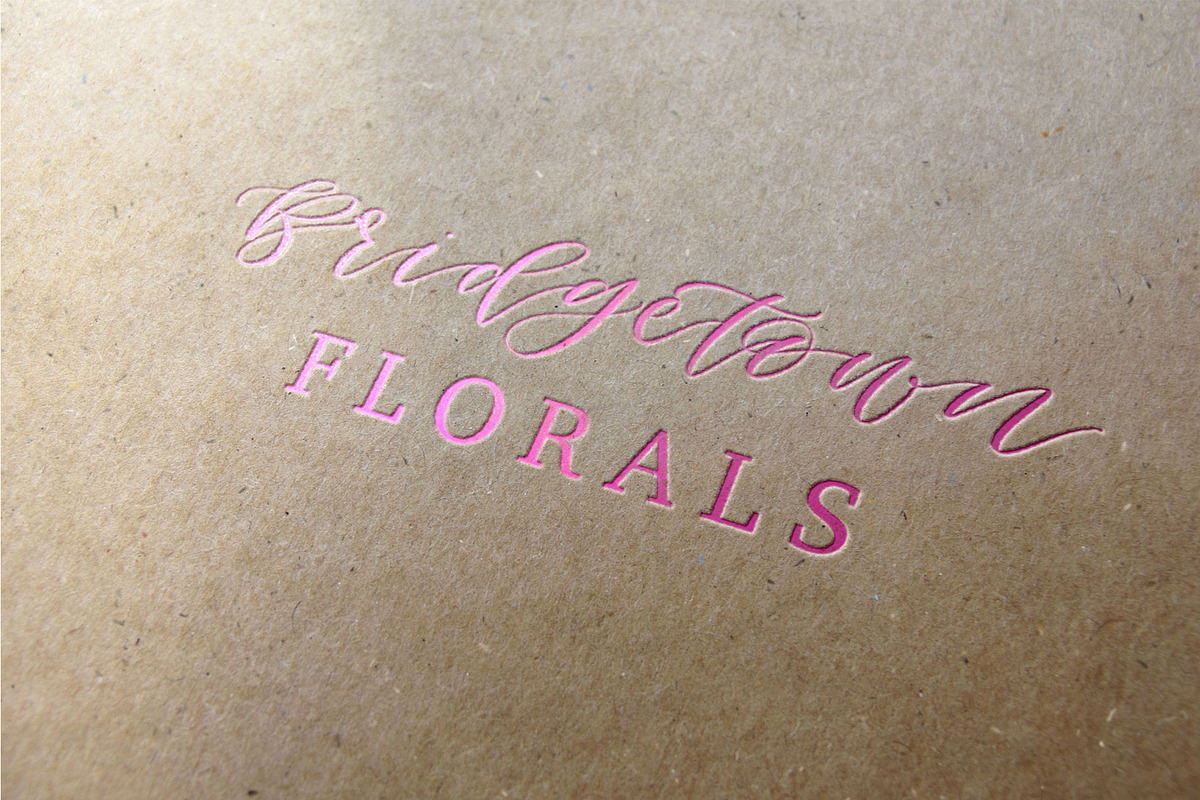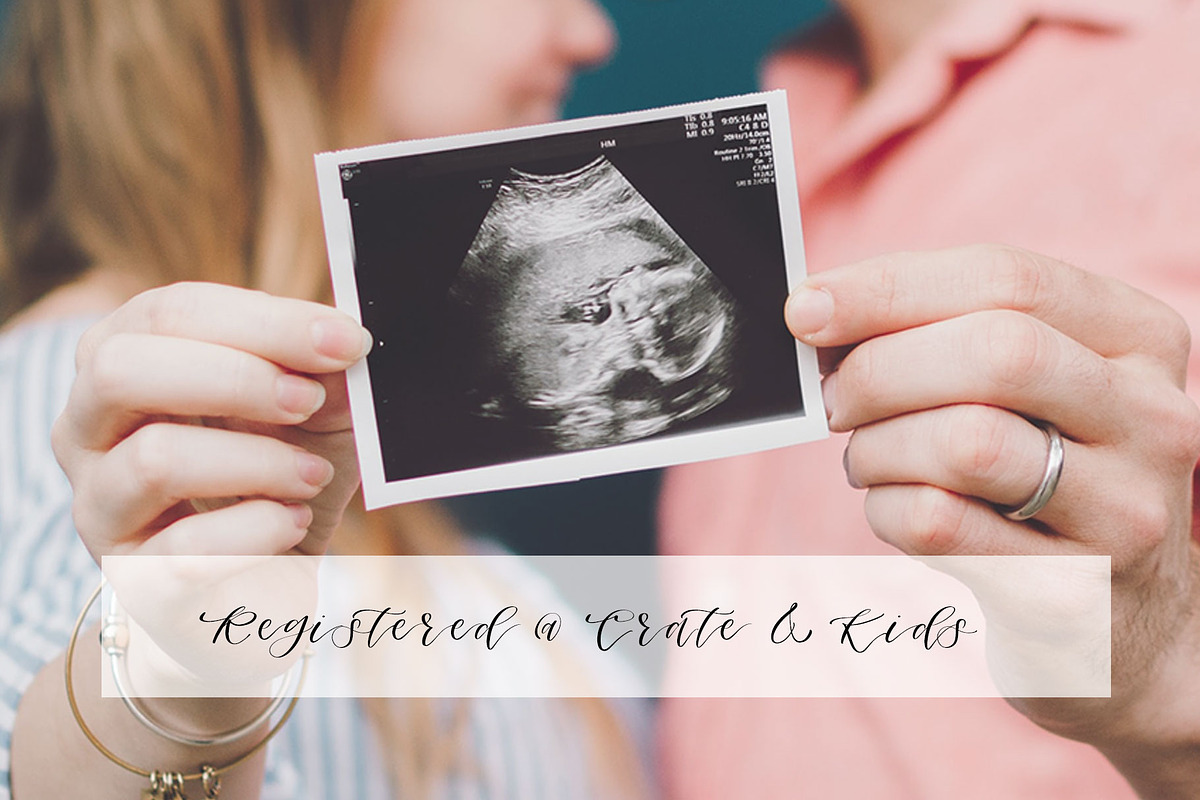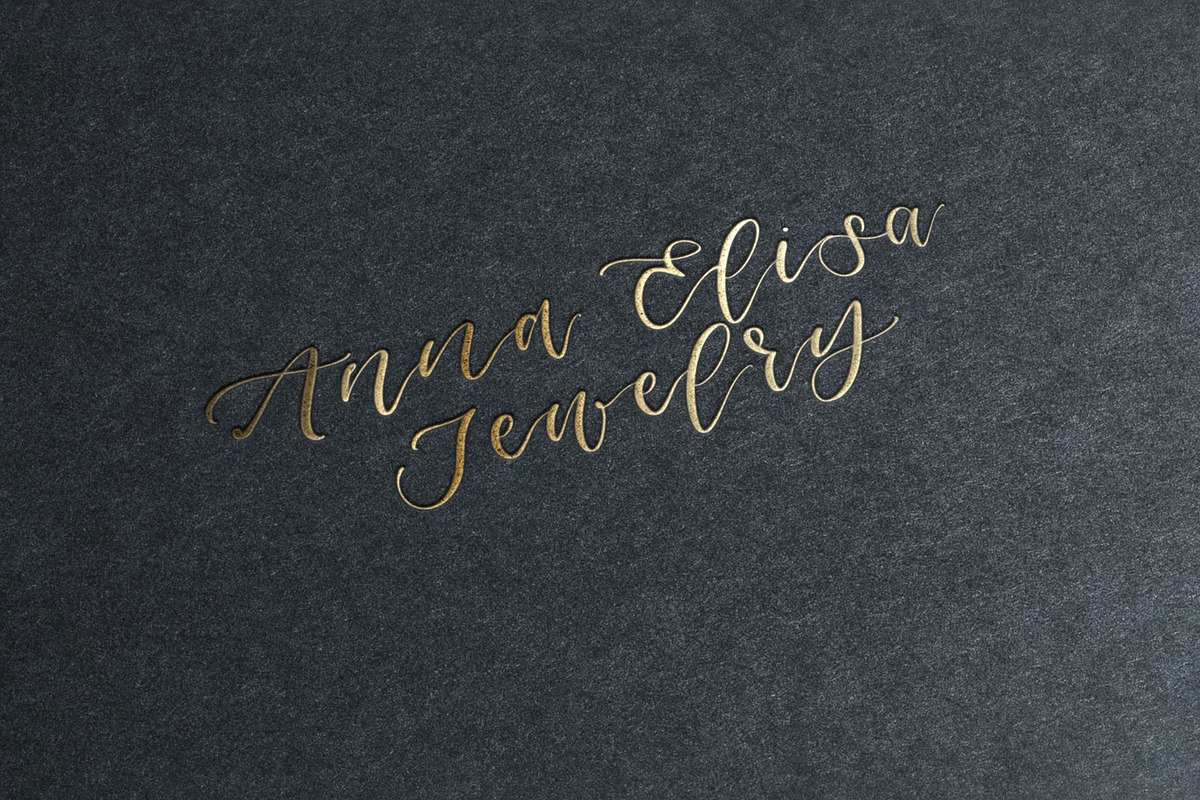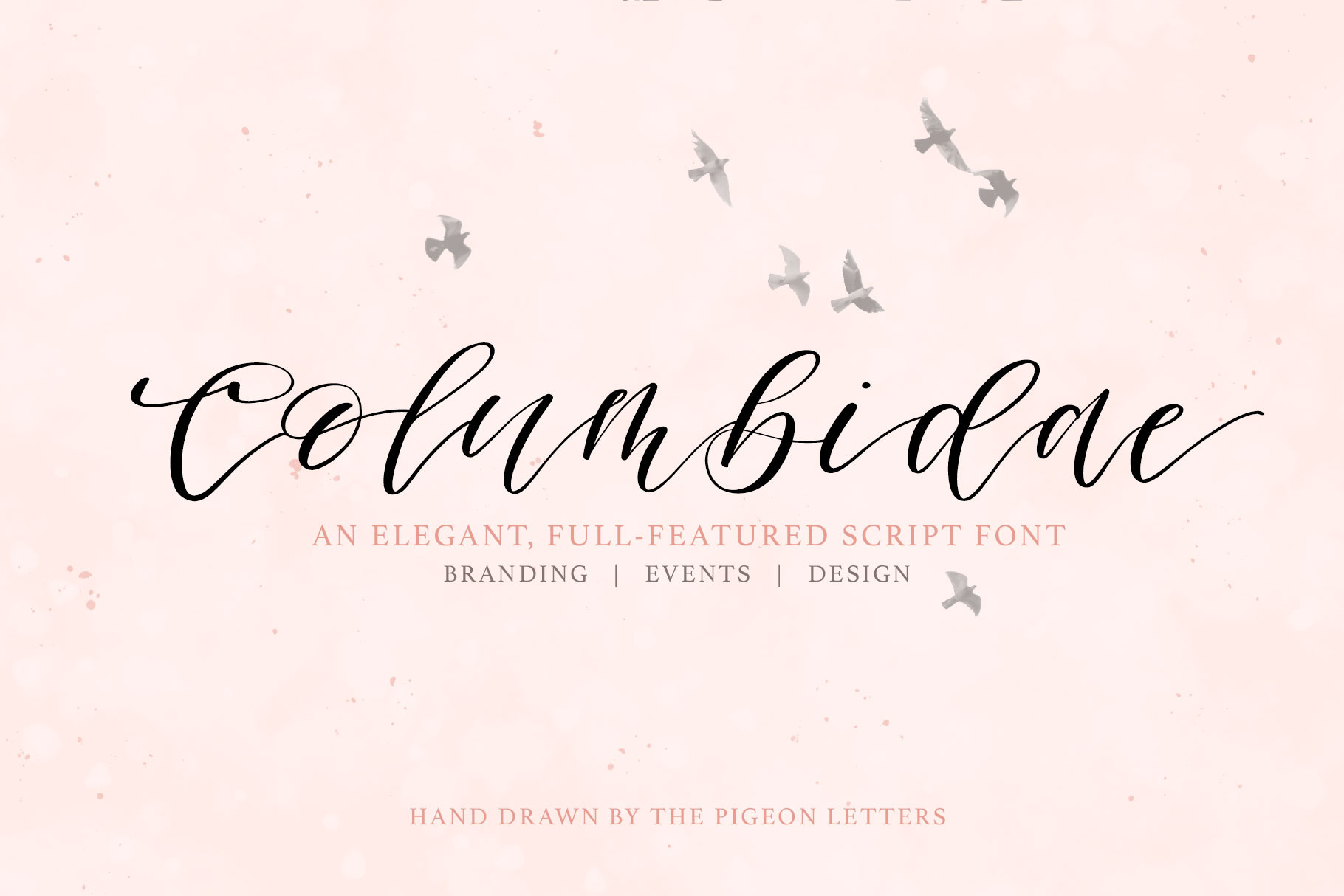
Columbidae Elegant Calligraphy Font
Introducing the new hand drawn full feature script font: Columbidae. This font presents a feminine calligraphy style that offers a beautiful accent to any design..
Columbidae was created with love as a hand drawn script and built from scratch with OpenType features and includes some initial forms, stylistic alternates for ALL lowercase letters, numbers, punctuation, and a handful of beautiful ligatures. It is PUA encoded and multilingual with Western European language support.
- Hand Drawn
- Select initial forms